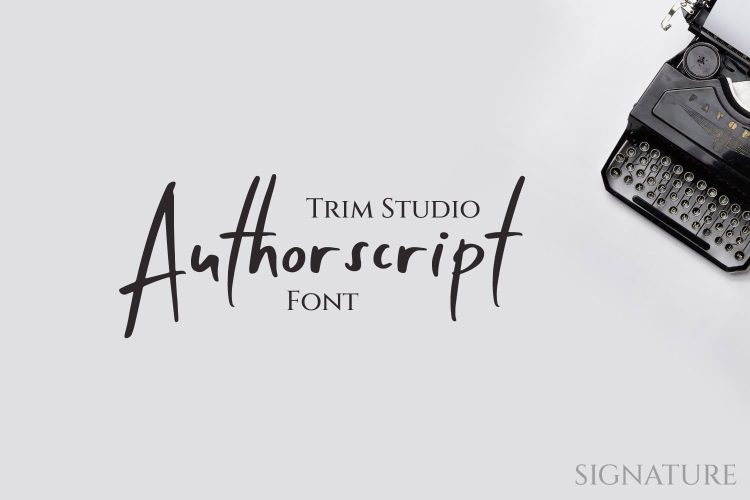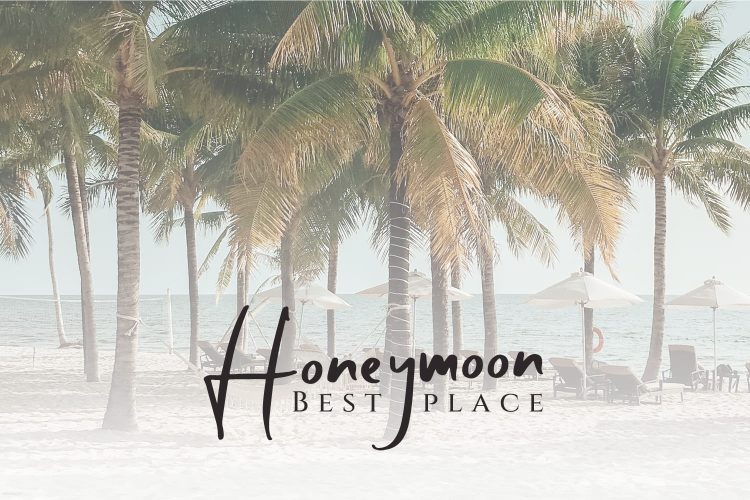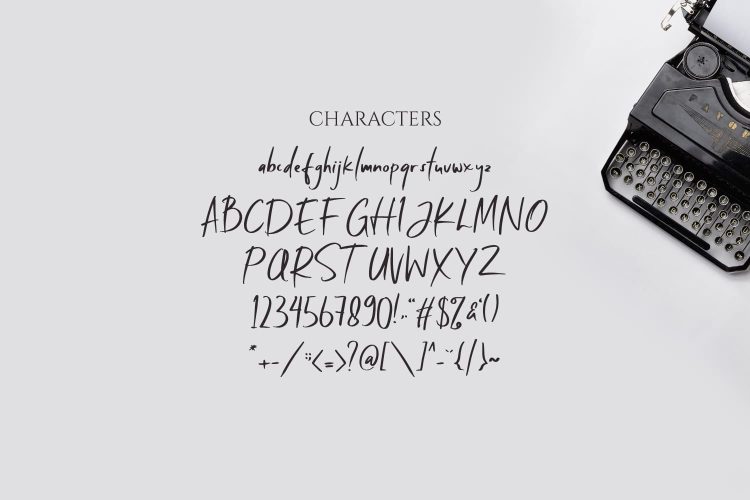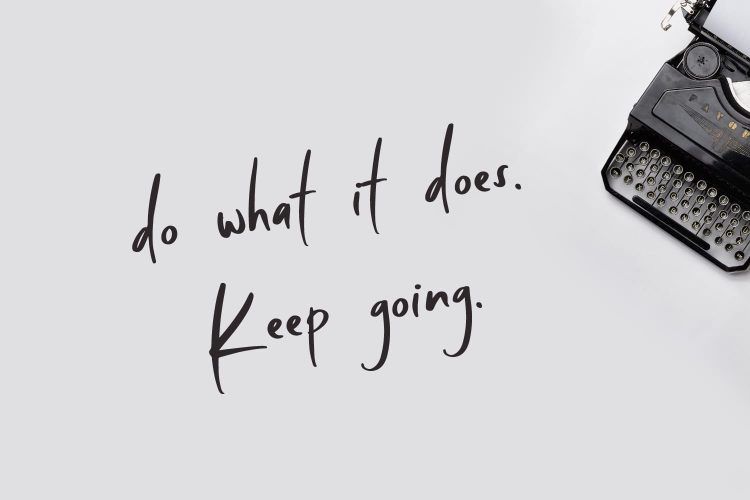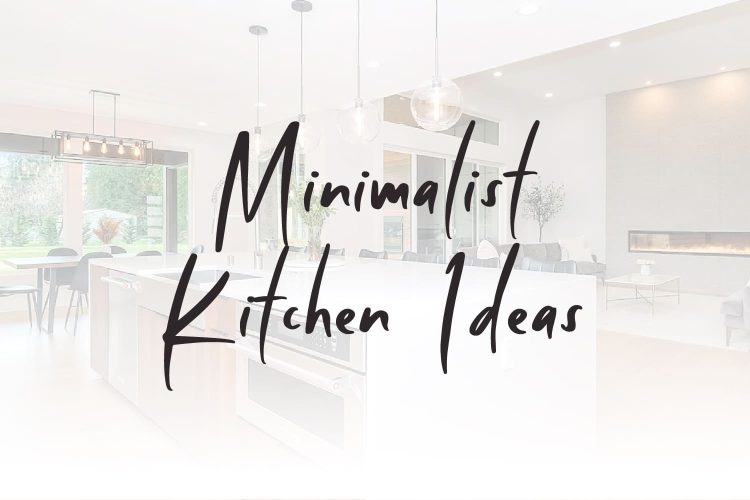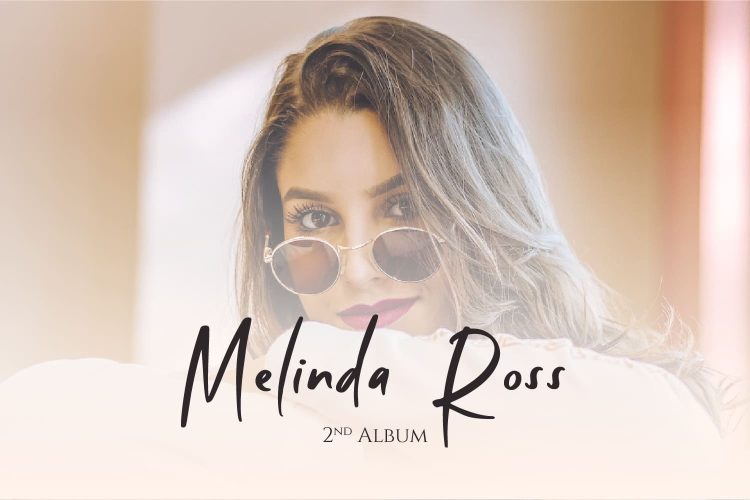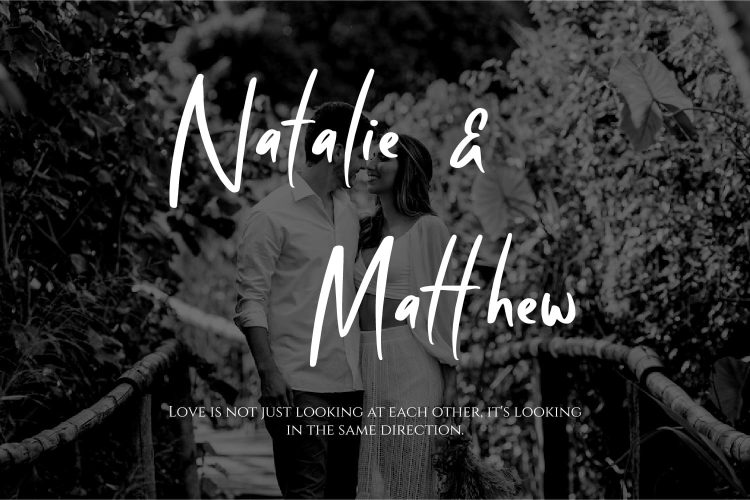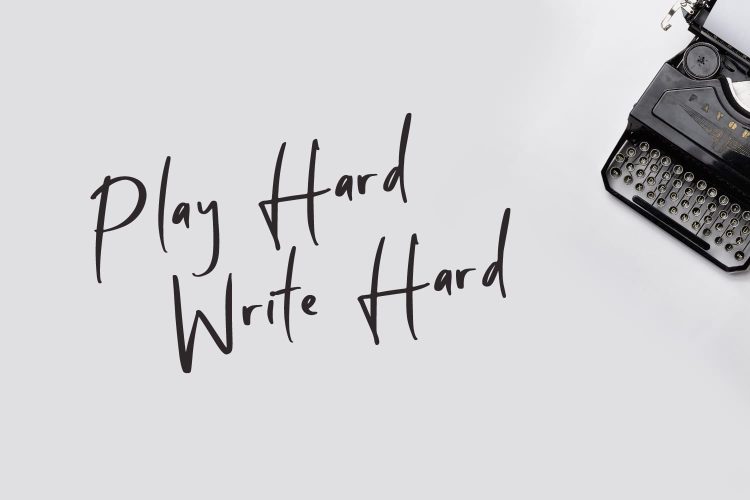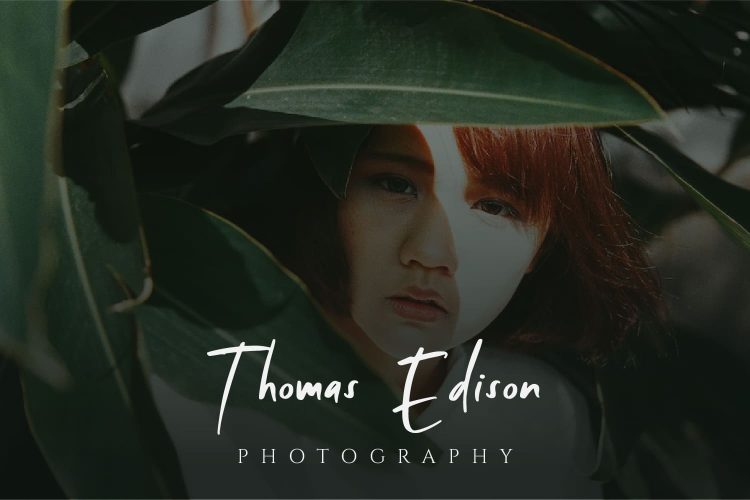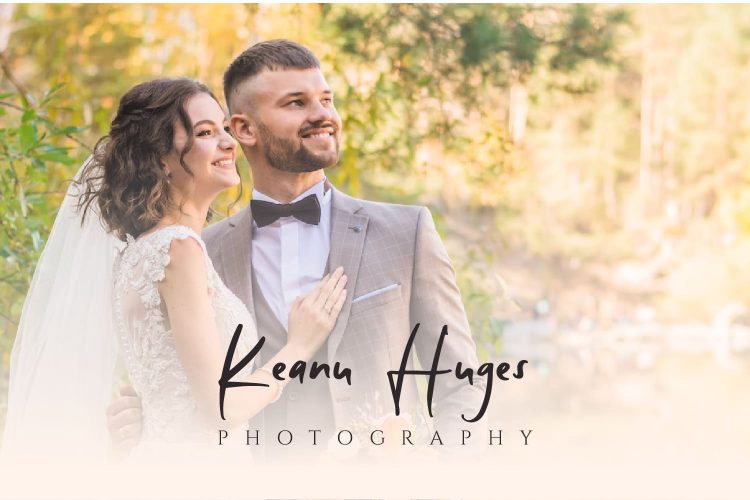
Authortscript is a versatile handwritten font with an easy flow movement that captures the essence of classic calligraphy. This elegant and professional-grade font is perfect for a variety of projects, including book covers, invitations, and branding materials. Its effortless strokes and natural curves create a unique and authentic feel, adding a touch of personality and charm to any design. AuthorScript is designed to be both stylish and legible, making it suitable for both digital and print applications. With its modern twist on traditional calligraphy, AuthorScript is sure to make your designs stand out and leave a lasting impression.